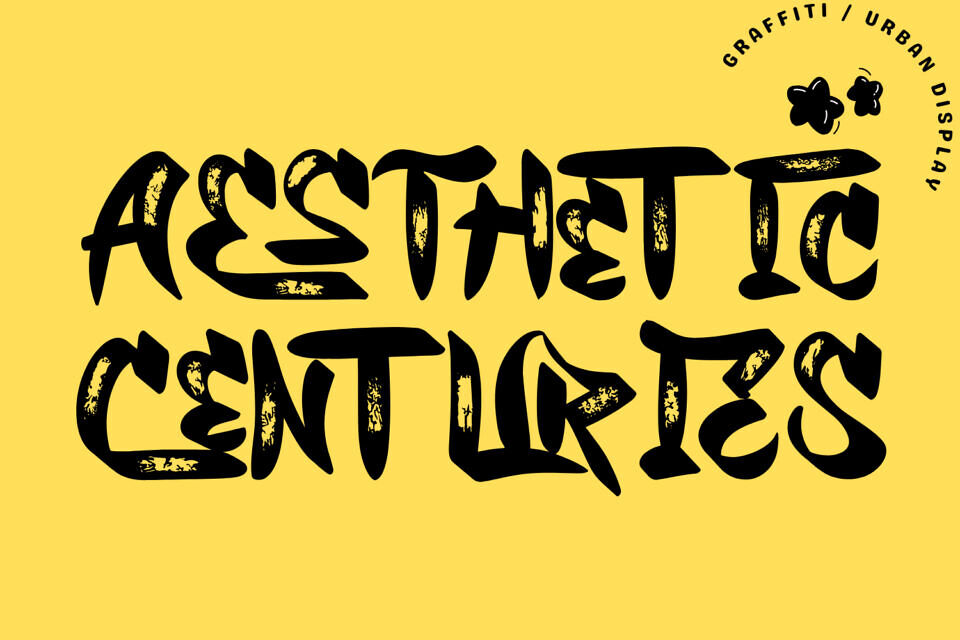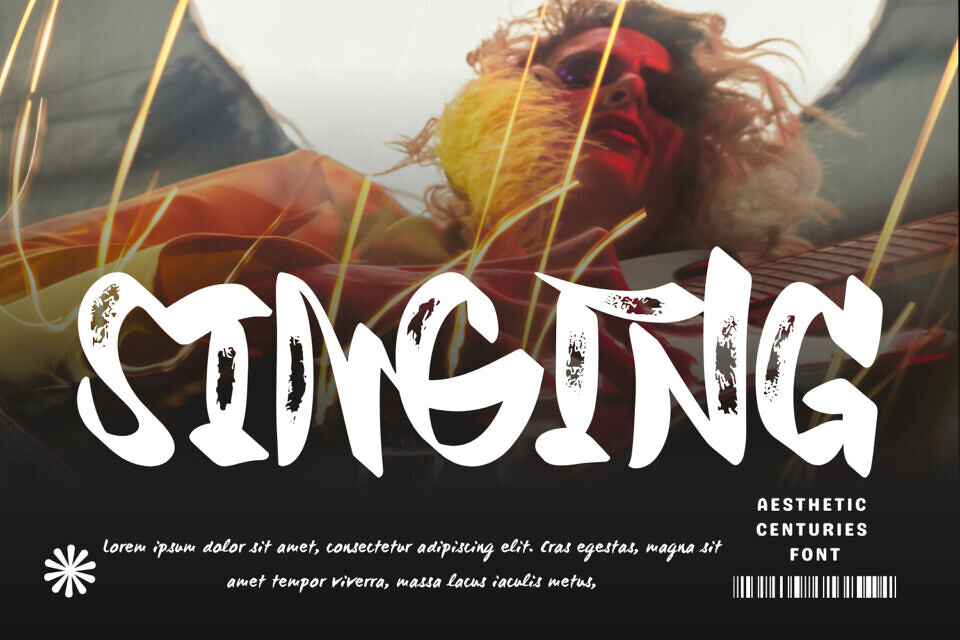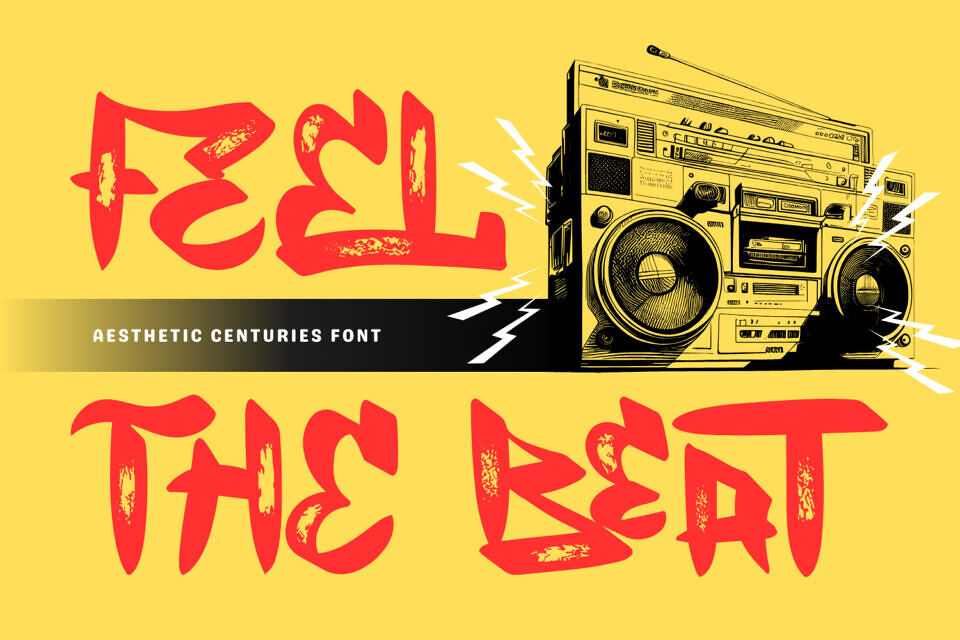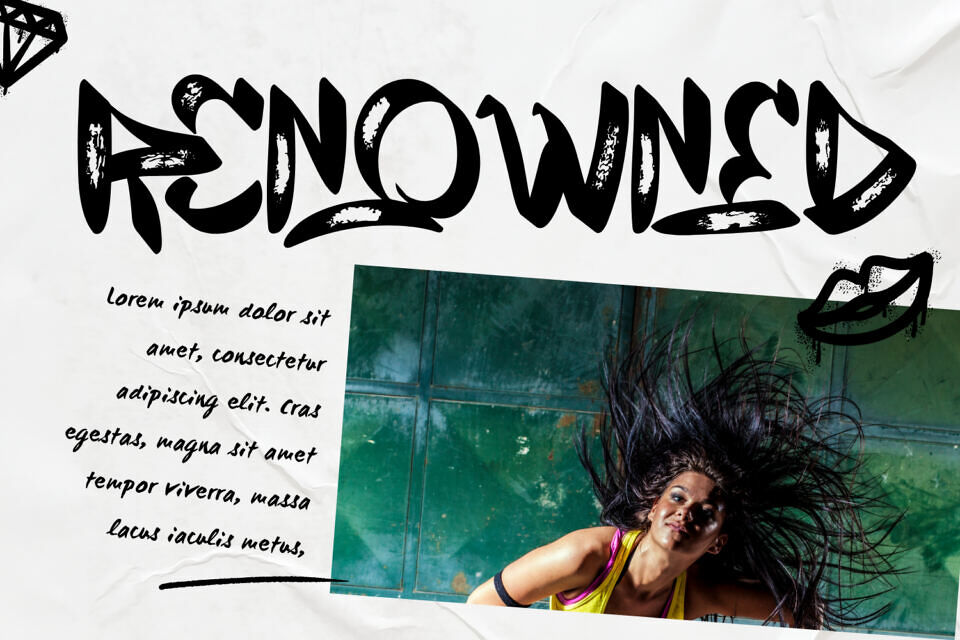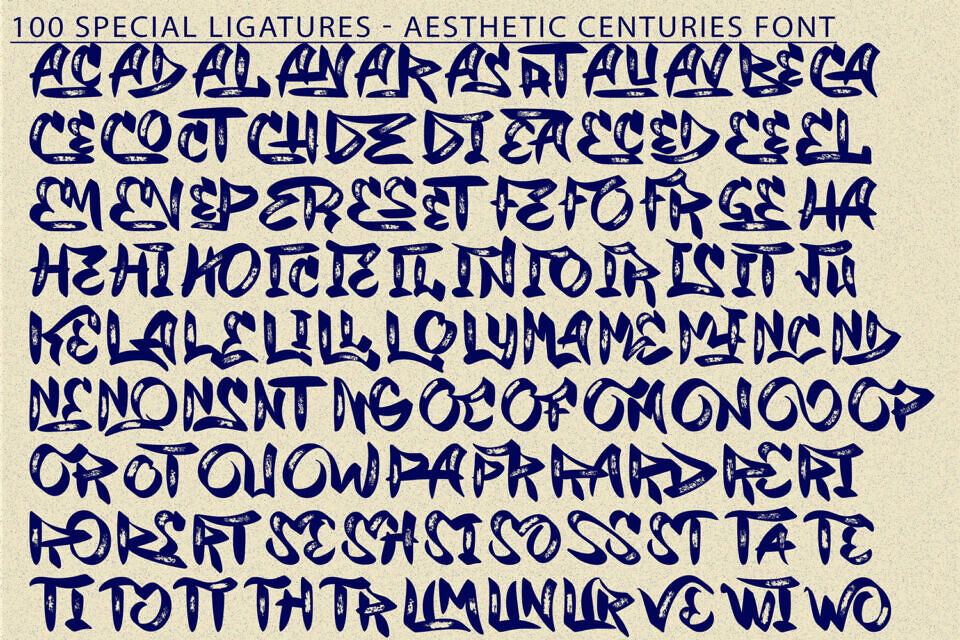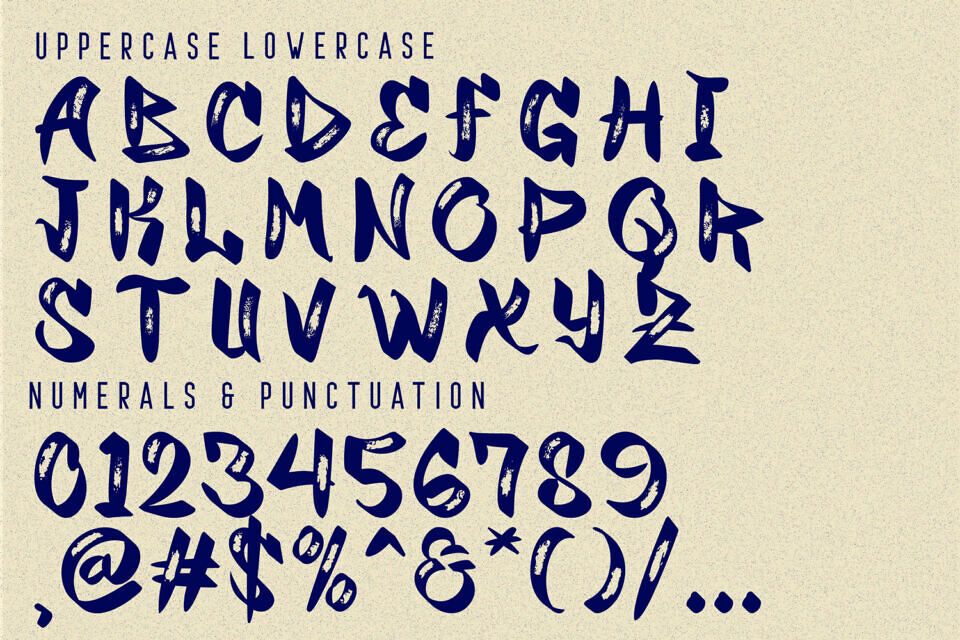
Introducing Aesthetic Centuries, a striking Brush Decorative Display Font that combines artistic expression with bold character. Designed with irregular brush strokes and handcrafted details, this font exudes raw energy and creative freedom. Its rough texture and unique letterforms make it perfect for posters, album covers, streetwear branding, and editorial projects.